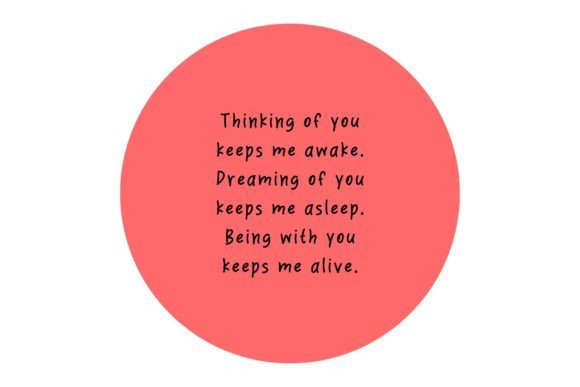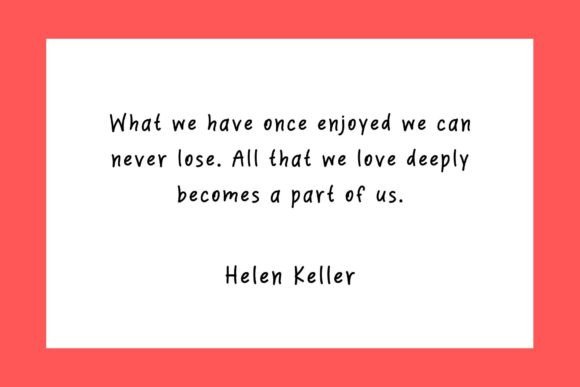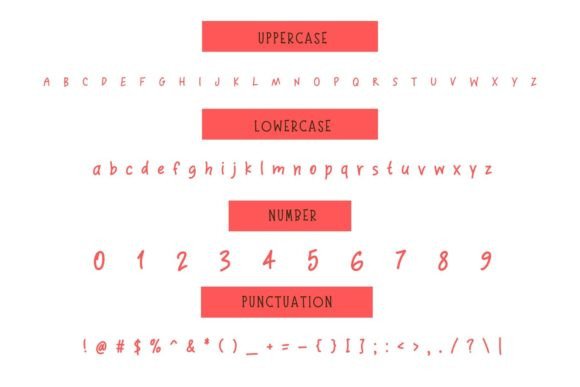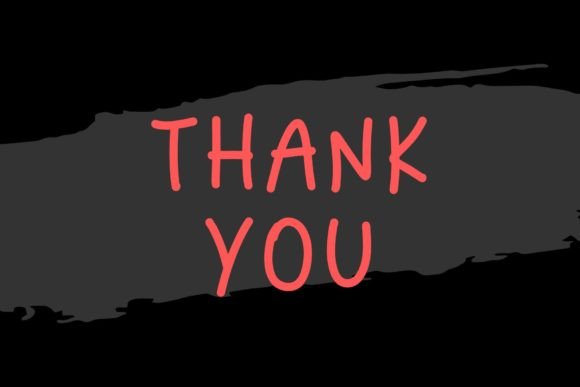
Introduction to No Brand Font
Remember the moment when you stumble upon that perfect font that makes your design project stand out? For many designers, that moment is a game-changer. It’s the difference between a mediocre design and one that truly speaks to your audience. And that’s exactly what we’re excited to share with you today – the No Brand Font, a delightful handwritten font that’s about to become your new go-to design resource.
| 👤 Author | Brown Cupple Fonts |
No Brand Font is more than just a pretty face – it’s a high-quality font that exudes playfulness and authenticity, making it the perfect choice for a wide range of creative projects, from blog posts to logos, branding, and even invitations. With its transparent background, this font seamlessly integrates with any design, adding a touch of personality to your work.
No Brand Font
- Comes in a single font weight, perfect for projects where a simple, clean look is desired.
- Designed to be highly legible, with clear and crisp typography suitable for body text and headings.
- Features a neutral and modern design aesthetic, allowing it to blend seamlessly into any design.
Honest Review: No Brand Font
I recently came across the No Brand Font and was immediately intrigued by its unique features. As a designer, I’m always on the lookout for high-quality design resources that can elevate my creative projects.
The No Brand Font is a free download, which is a definite plus in my book. It’s a versatile font that can be used for a variety of purposes, from digital displays to print materials. One of the standout features of this font is its transparent background, which makes it easy to layer over other design elements.
- ✨ Transparent background makes it easy to layer over other design elements
- ⚠️ Limited character set, may not be suitable for complex text-based projects
- ⚠️ Not as customizable as some other fonts on the market
Overall, I’m impressed with the No Brand Font. While it may have some limitations, its unique features and high-quality design make it a valuable addition to any designer’s toolkit.
No Brand Font: A High-Quality Design Resource
No Brand Font is a versatile and free downloadable font that can be used for a wide range of creative projects. With its transparent background and high-quality design, it’s an ideal choice for designers looking for a clean and modern aesthetic.
Tips for Getting the Most Out of No Brand Font
To get the most out of No Brand Font, use it for headings and titles to create a consistent look throughout your design. Experiment with different font sizes and colors to enhance the visual appeal of your project.
Montserrat is a modern sans-serif font that is designed for use in digital design, making it a great design resource for web and mobile projects. It features a transparent background and a high-quality, scalable design. When to use: For projects that require a sleek, urban look.
Comparison to No Brand Font: Montserrat is a more contemporary font that offers a similar level of versatility, but with a more edgy, modern feel.
Avenir
Avenir is a high-quality sans-serif font that is designed for use in creative projects, featuring a transparent background and a clean, modern design. When to use: For projects that require a sophisticated, elegant look.